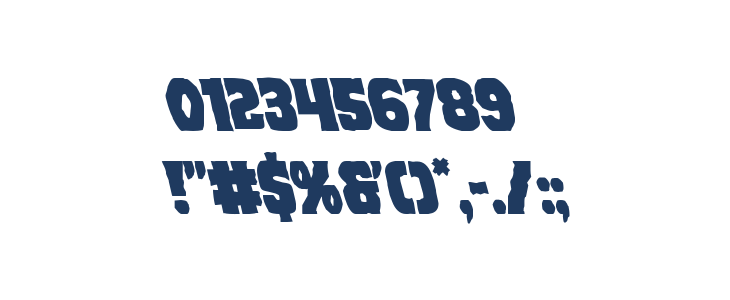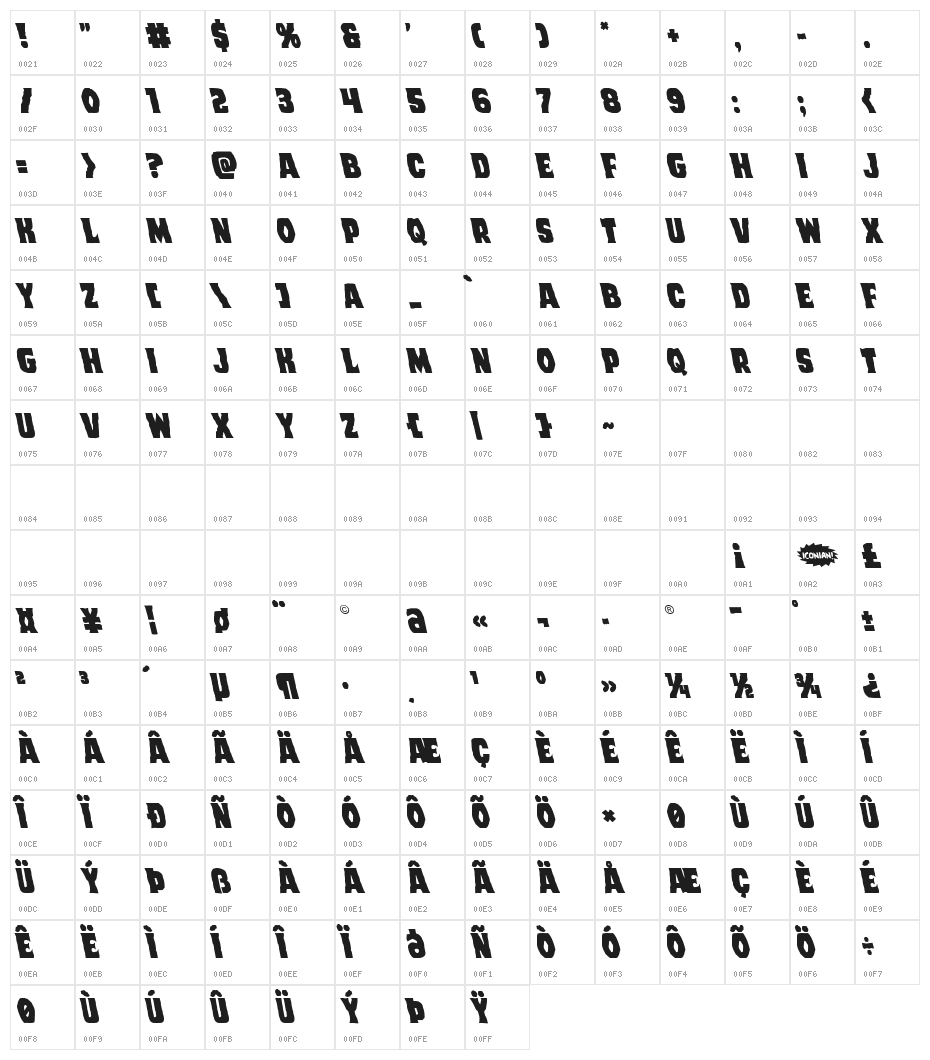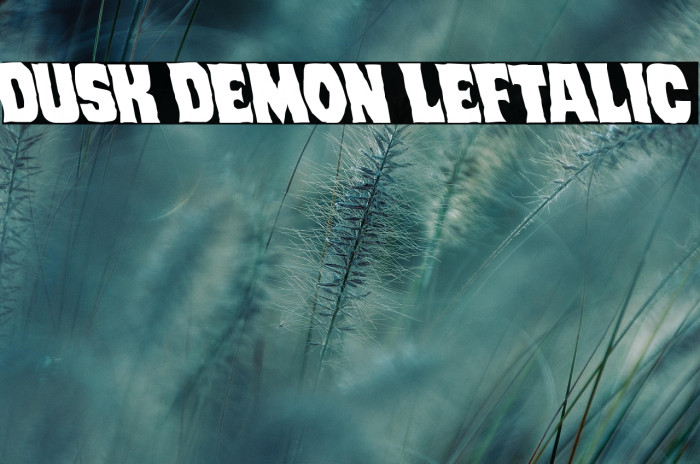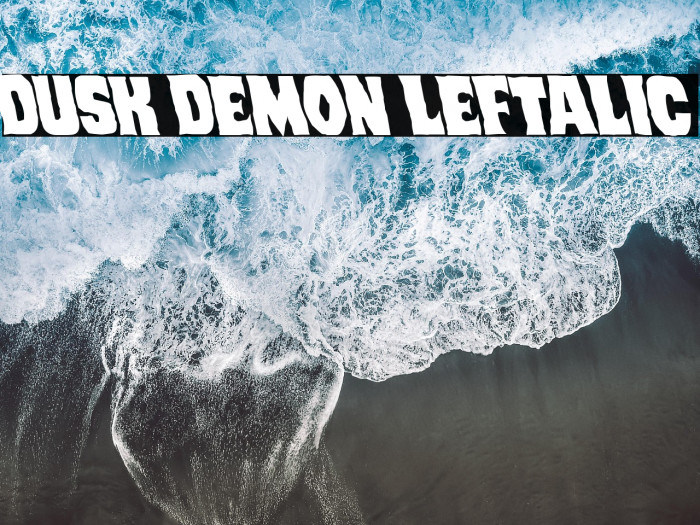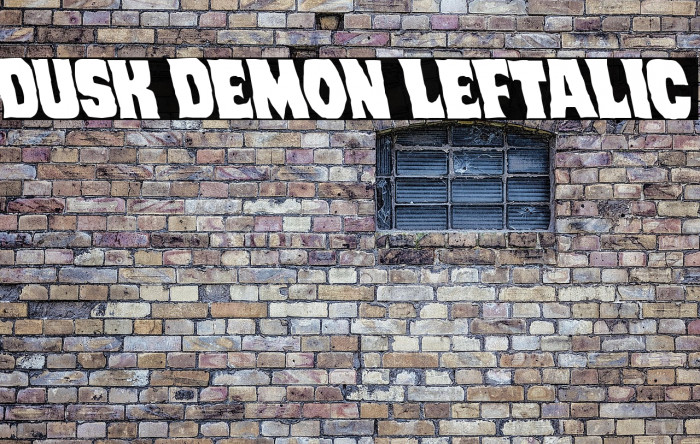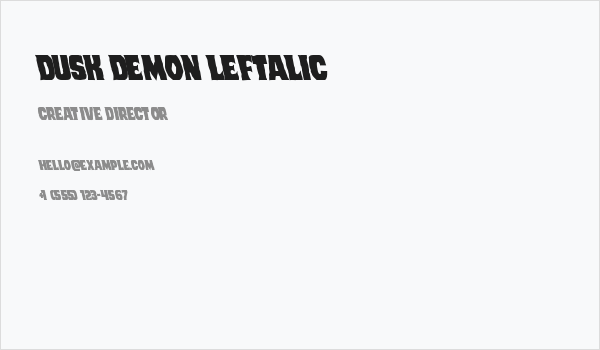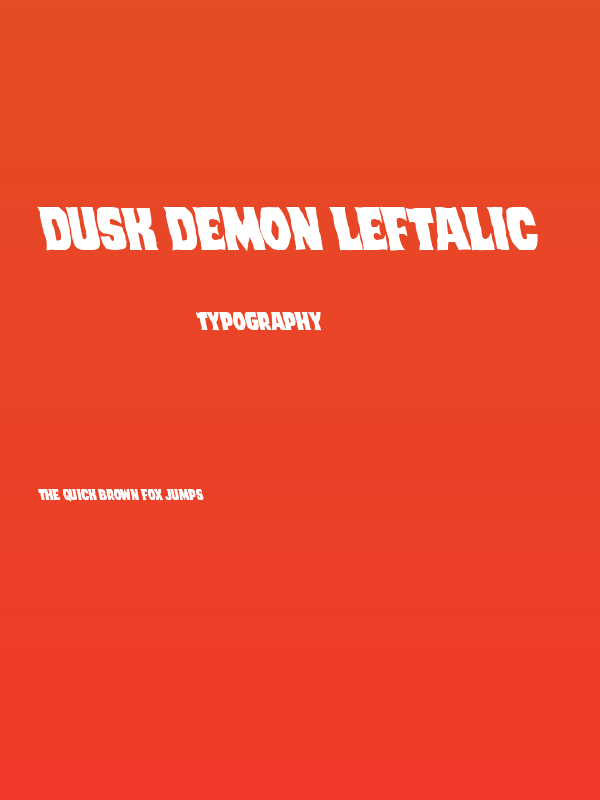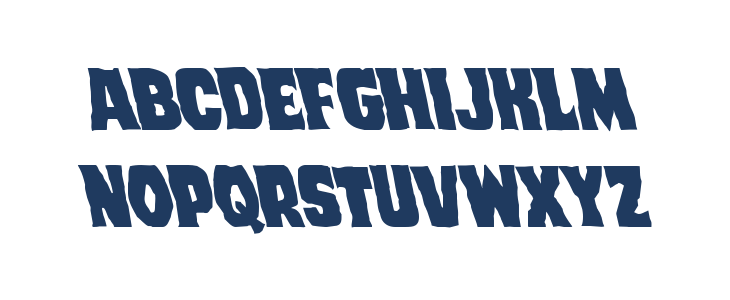
Dusk Demon Leftalic Font
Dusk Demon Leftalic Description
This font features a bold and dynamic style with a strong presence. The characters have a rugged, uneven texture that gives them a distressed, edgy look. The strokes are thick and irregular, creating a sense of movement and energy. The uppercase and lowercase letters maintain a consistent style, with the uppercase being slightly more pronounced. The numbers and special characters follow the same aesthetic, ensuring uniformity across all glyphs. This font's unique design makes it stand out, perfect for projects that require a bold statement.
| Proposed Projects | Ideal for posters, album covers, video game graphics, and any project needing a bold, eye-catching typeface. |